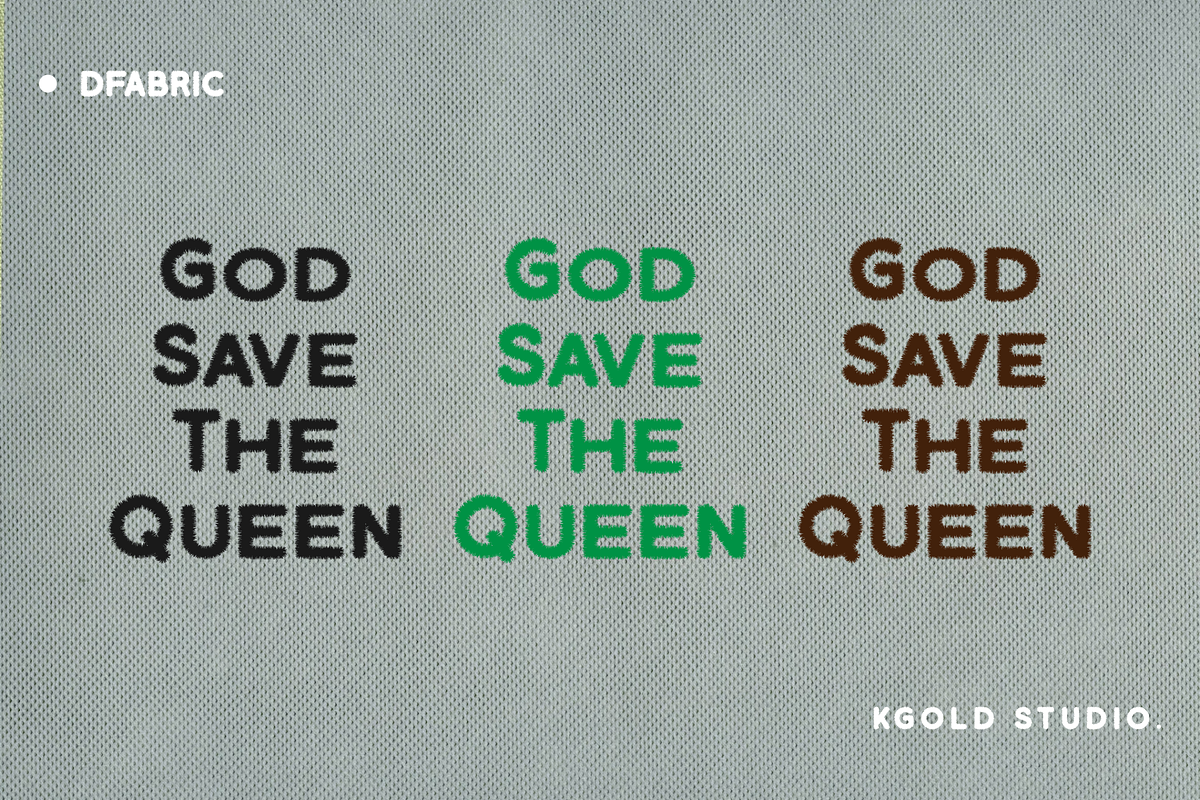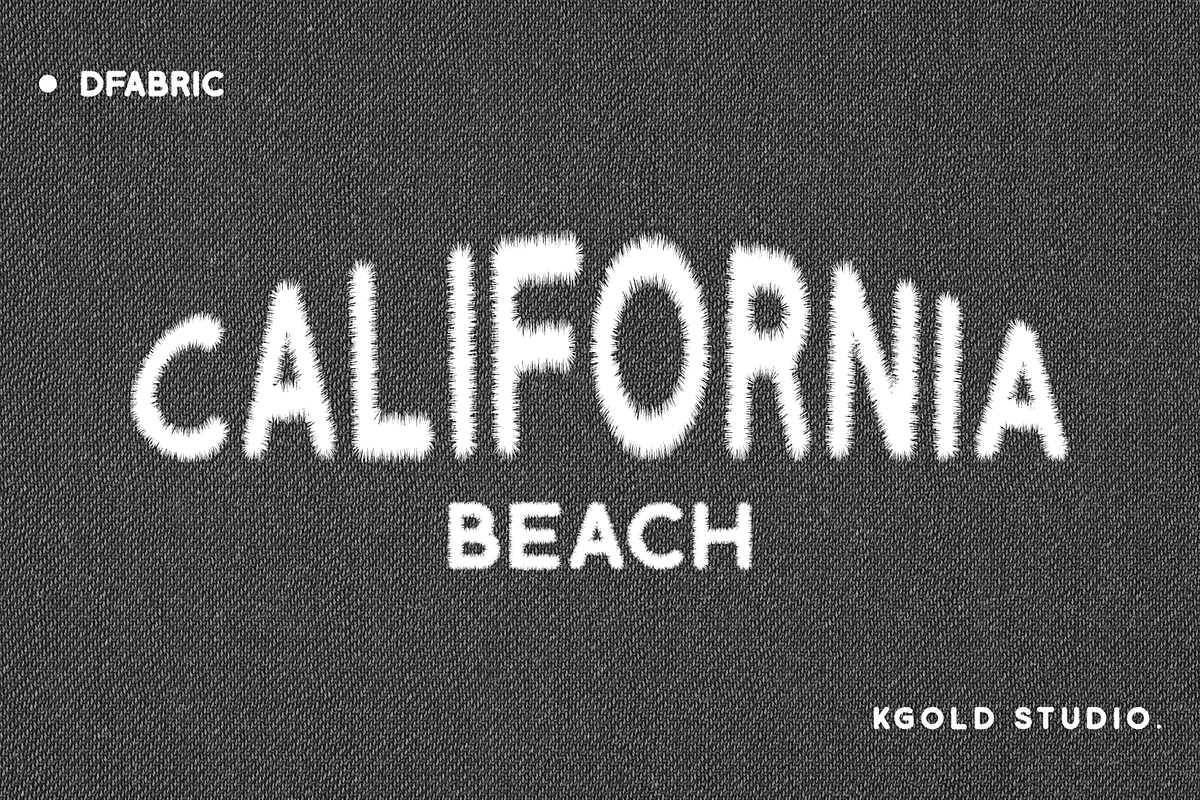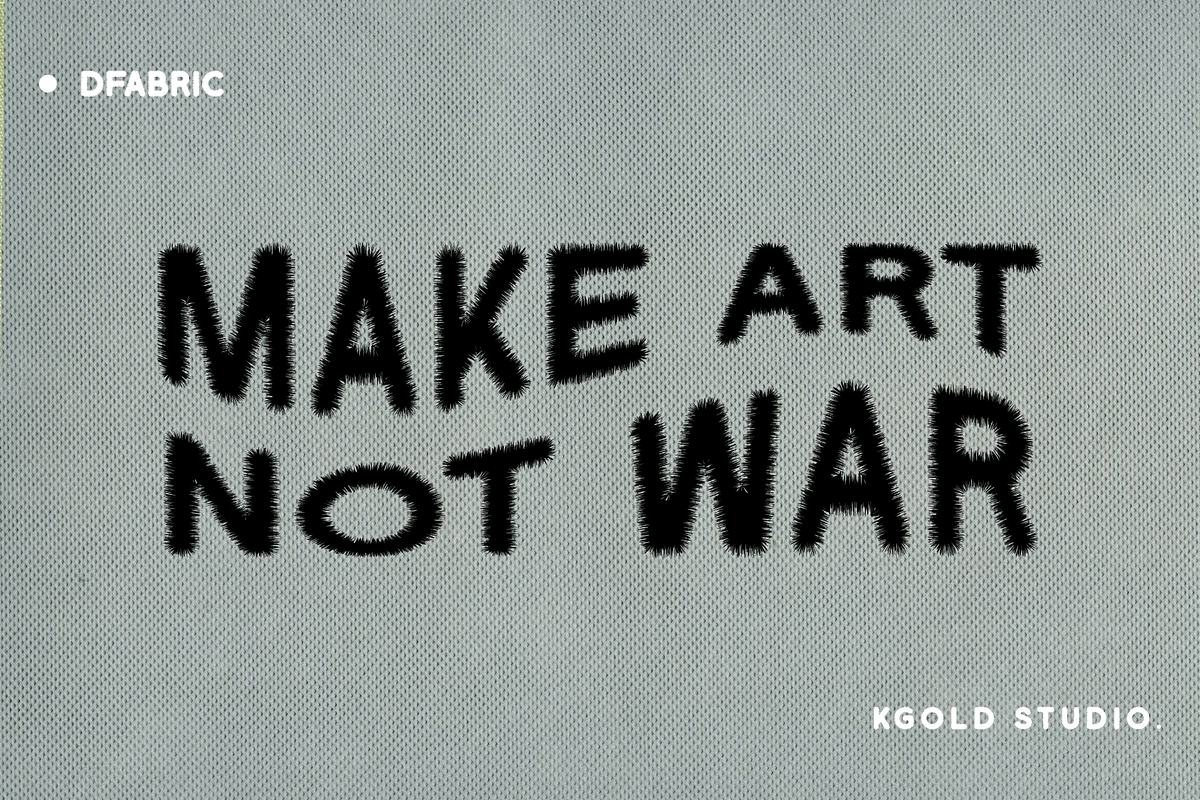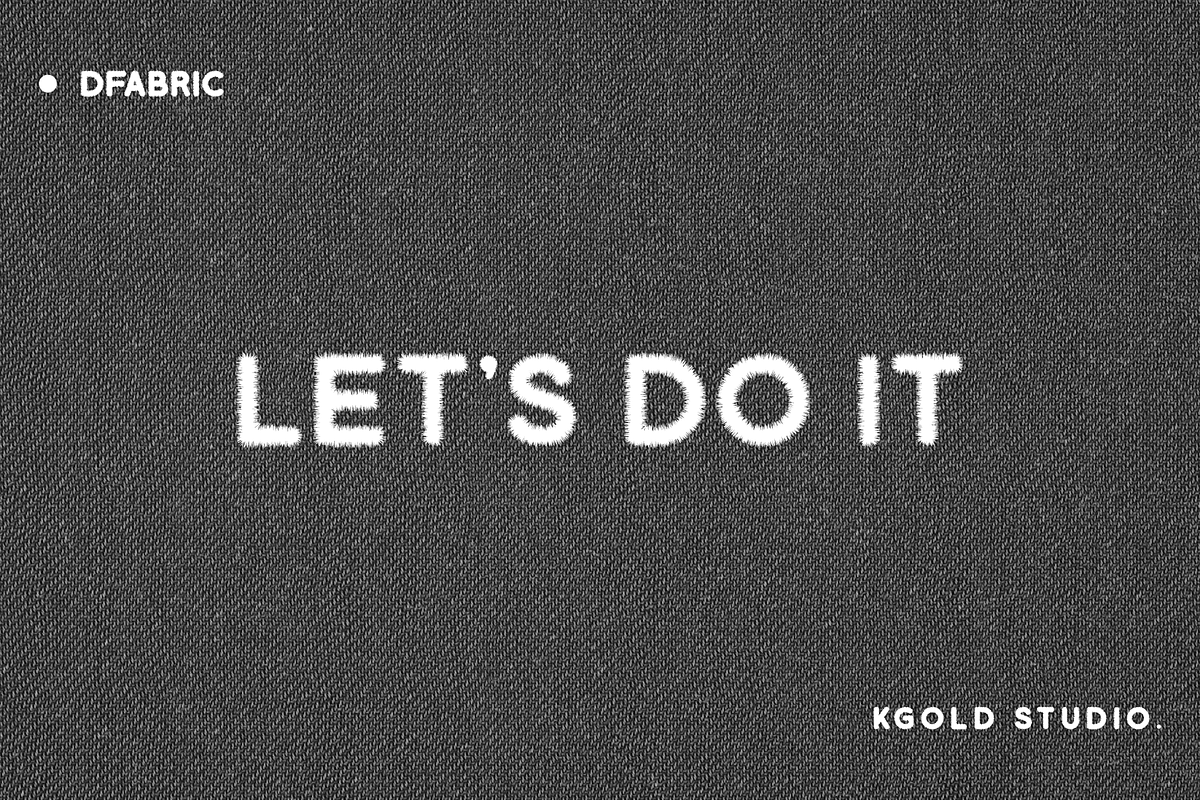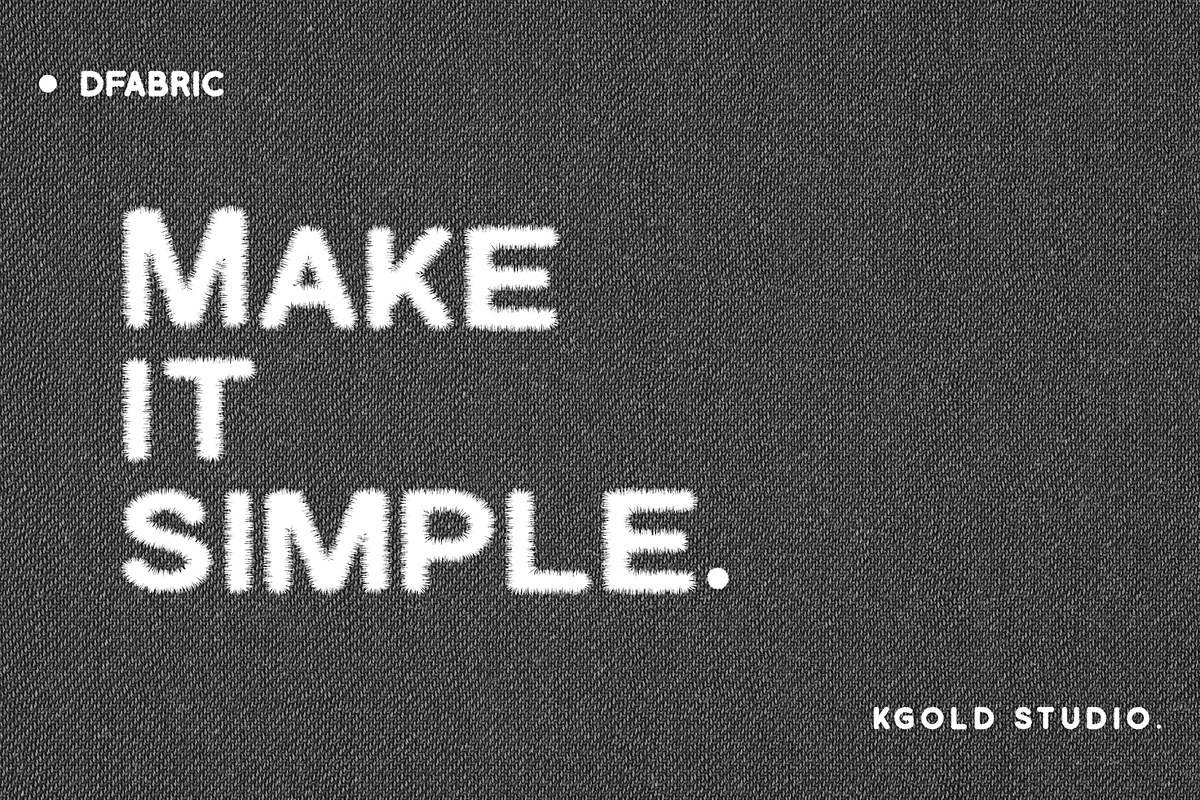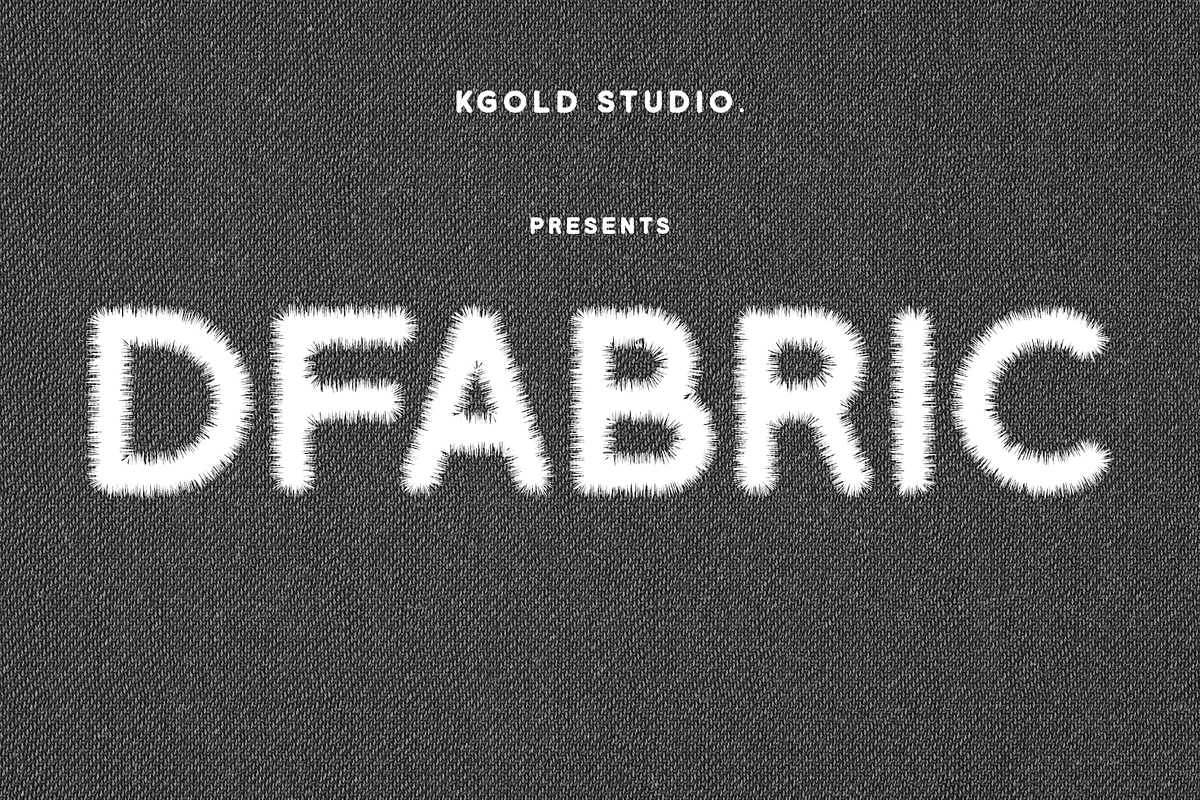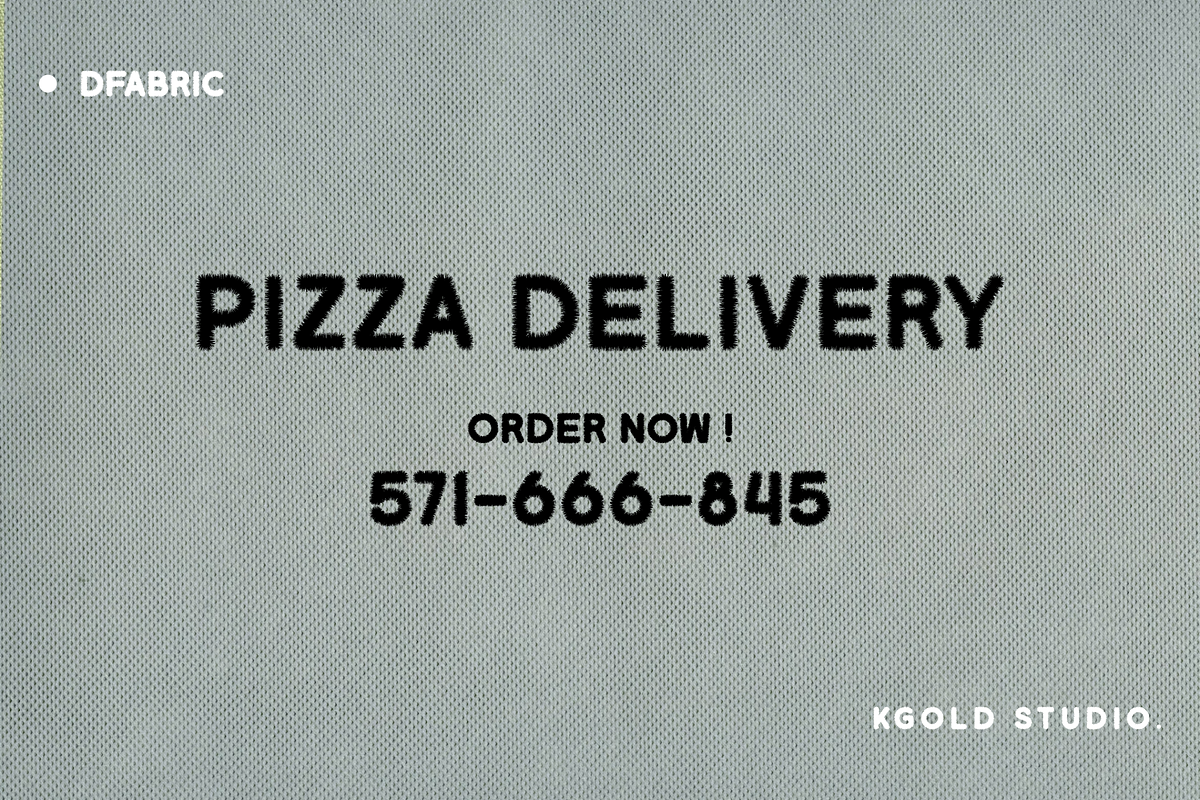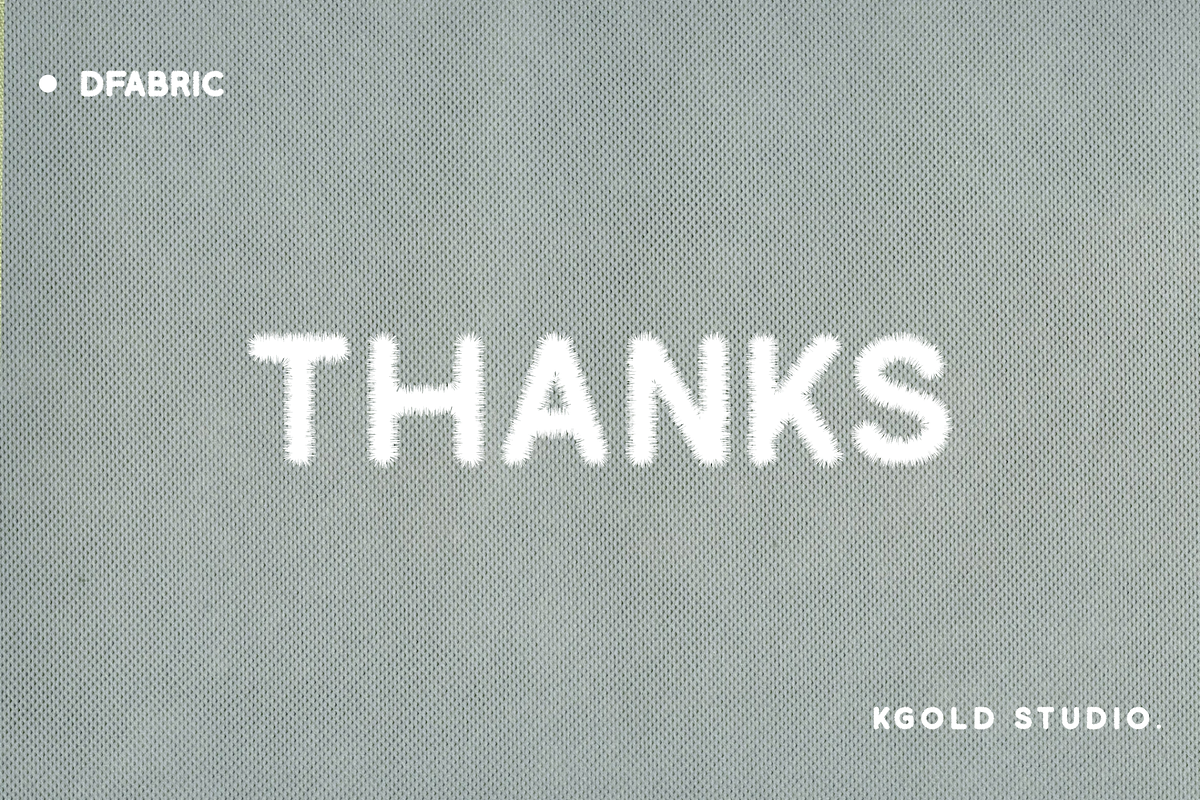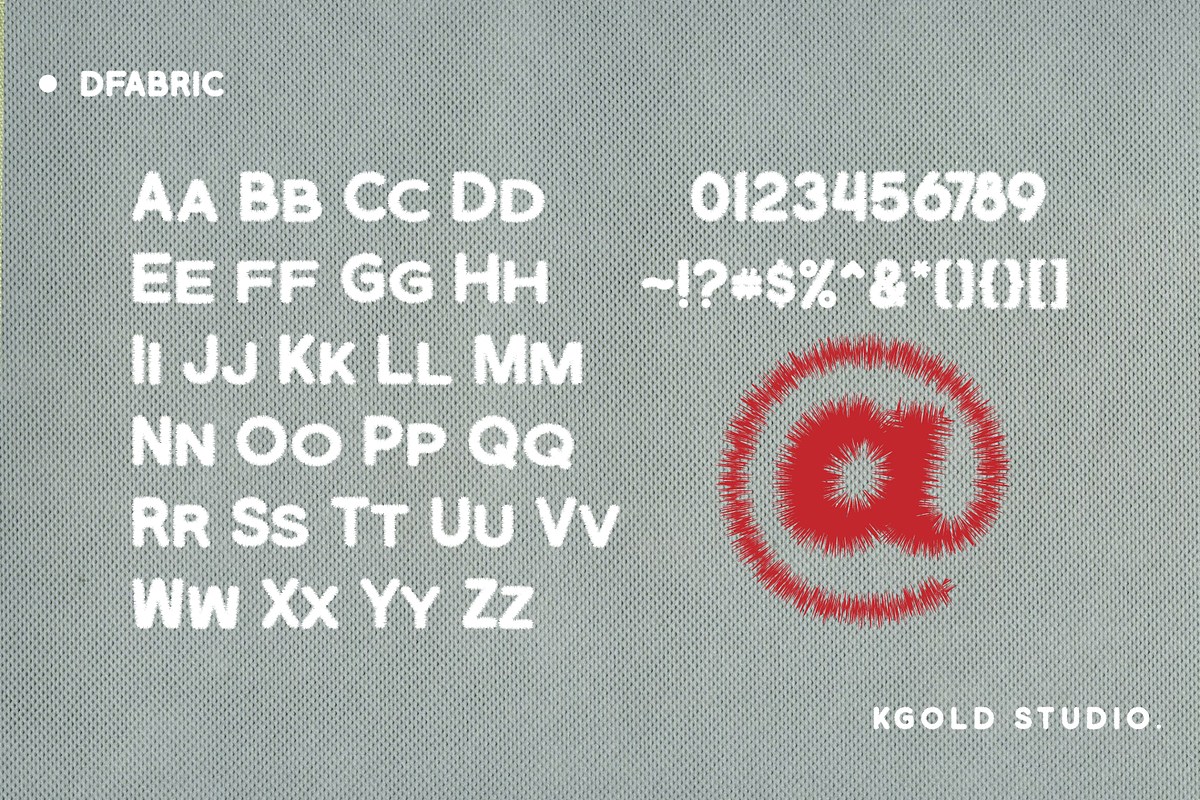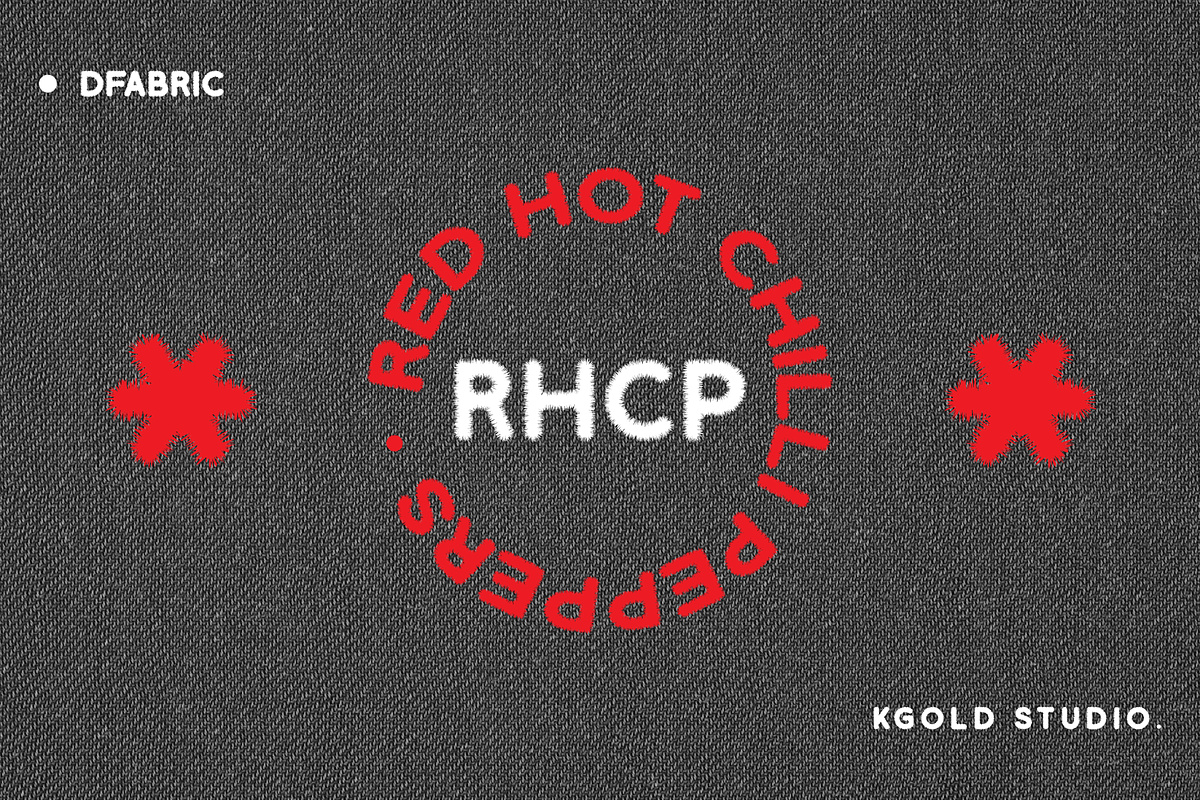
Dfabric - Sans
Introducing Dfabric: The Perfect Fusion of Fabric and Typography
Discover Dfabric, a meticulously crafted sans-serif font that brings the charm of embroidery stitching to your digital designs. Inspired by the intricate patterns of fabric and the elegance of embroidery, Dfabric transforms every letter into a piece of art, making your projects stand out with a unique textile touch.
- Full character set and OpenType features
- Multi-language support
- Textile-Inspired Design: Each character in Dfabric resembles the fine details of embroidery, adding a tactile and handmade feel to your text.
- Versatile Usage: Perfect for branding, logo design, invitations, and any project that demands a blend of sophistication and creativity.
- High Legibility: Despite its intricate design, Dfabric maintains excellent readability, ensuring your message is clear and captivating.
- Multiple Weights: From light to bold, Dfabric offers a range of weights to suit various design needs.
- Multilingual Support: Equipped with extensive language support, Dfabric ensures your message reaches a global audience.
Why Choose Dfabric?
Dfabric isn’t just a font; it’s a gateway to infusing your designs with the warmth and character of hand-stitched fabric. Whether you’re crafting a logo for a fashion brand, designing wedding invitations, or creating eye-catching social media graphics, Dfabric offers the perfect balance of elegance and creativity.
Elevate Your Design Projects with Dfabric